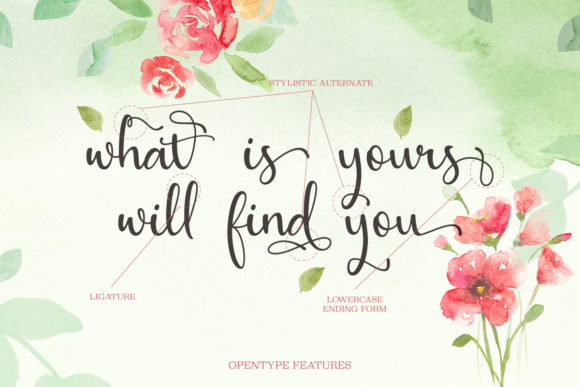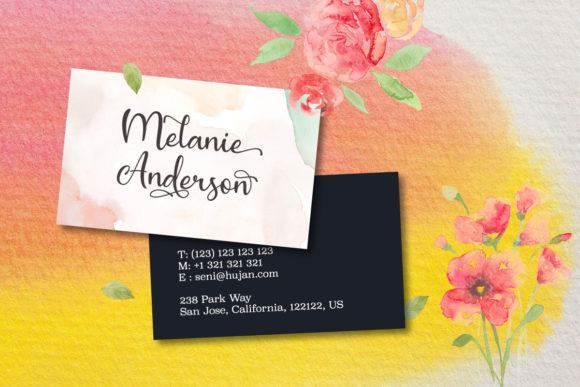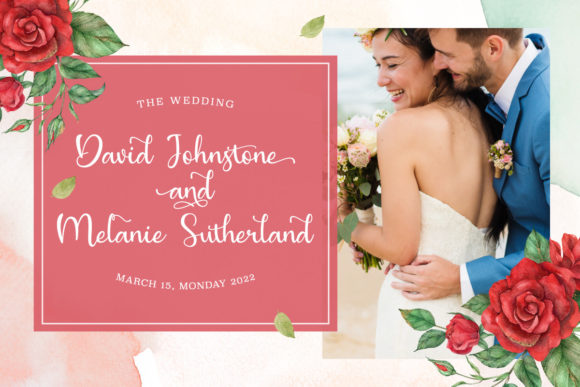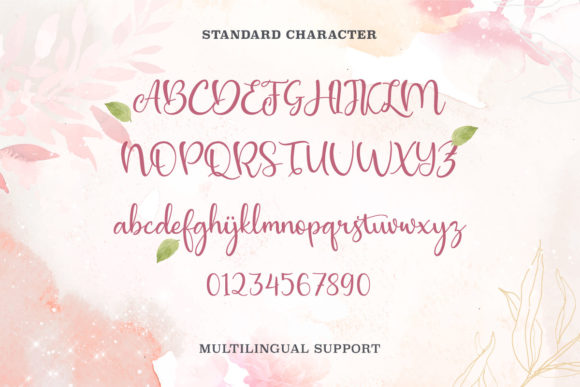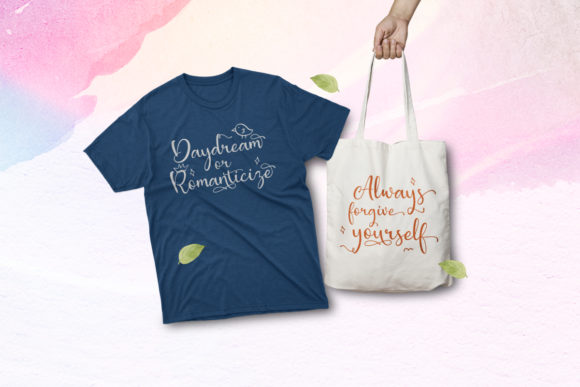
The Perfect Brushstroke: Unlocking the Allure of Allana Beauty Font
Have you ever found yourself in a creative rut, struggling to find the perfect font to bring your design to life? You’re not alone. Sometimes, it takes just the right brushstroke to transport your vision from ordinary to extraordinary. For designers, the quest for that elusive ‘wow’ factor is a constant pursuit.
Enter Allana Beauty Font, a stunning and timeless handwritten font designed to capture attention and evoke emotion. Whether you’re crafting an eye-catching logo, branding a new product, or creating a beautiful quote, Allana Beauty Font is the perfect companion. With its PUA encoding, accessing the font’s extensive range of glyphs and swashes is a breeze, giving you the freedom to experiment and push the boundaries of your creativity.
Allana Beauty Font Key Features
- Font Size: The font family includes various weights and styles, ranging from 100 to 900, providing flexibility for designers to achieve the desired level of boldness or subtlety.
- Resolution: The font is optimized for high-resolution displays, ensuring crisp and clear text rendering on modern screens.
- Unique Characteristics: The Allana Beauty Font features a unique blend of elegance and sophistication, with intricate details and subtle flair that set it apart from other script fonts.
- Language Support: The font supports a wide range of languages, including Latin, Cyrillic, and Greek scripts, making it suitable for global design projects.
- Kerning and Ligatures: The font includes advanced kerning and ligature pairs, ensuring seamless text flow and a polished, professional appearance.
Allana Beauty Font Review
Overall, I’m quite impressed with the Allana Beauty Font. Here’s what I like about it:
- ✨ Unique and elegant design that adds a touch of sophistication to any project.
- ✨ Excellent legibility, making it perfect for body text and headings.
- ✨ A wide range of weights and styles to choose from, offering versatility and customization options.
However, I do have some reservations:
- ⚠️ Limited language support, which might be a concern for multilingual projects.
- ⚠️ The font might be too ornate for certain design styles or audiences, potentially overwhelming the content.
Overall, the Allana Beauty Font is a beautiful and elegant choice for projects where a touch of luxury is desired. While it may have some limitations, its unique design and excellent legibility make it a solid option for designers and typographers. With careful consideration of its limitations, I’d recommend giving this font a try.
To get the most out of the Allana Beauty Font, use it for:
- Celebration invitations and event materials
- Wedding stationery and decor
- Beauty and wellness branding
- Uplifting quotes and motivational posters
Remember to pair the font with a clean and simple design to enhance its elegance and sophistication.
Alternatives to Allana Beauty Font
Great Vibes is a beautiful, elegant script font that’s perfect for adding a touch of sophistication to your designs. It’s ideal for use in wedding invitations, luxury branding, and high-end marketing materials. Great Vibes has a similar feel to Allana Beauty Font, but with a more refined and classic look.
Carolyna Pro is a modern, elegant script font that’s perfect for creating a sense of luxury and sophistication. It’s ideal for use in high-end branding, marketing materials, and editorial design. Carolyna Pro has a more modern feel than Allana Beauty Font, with a focus on clean lines and minimal ornamentation.
Luckiest Charm
Luckiest Charm is a whimsical, elegant script font that’s perfect for adding a touch of magic to your designs. It’s ideal for use in wedding invitations, children’s branding, and fantasy-themed marketing materials. Luckiest Charm has a more playful feel than Allana Beauty Font, with a focus on flourishes and ornate details.